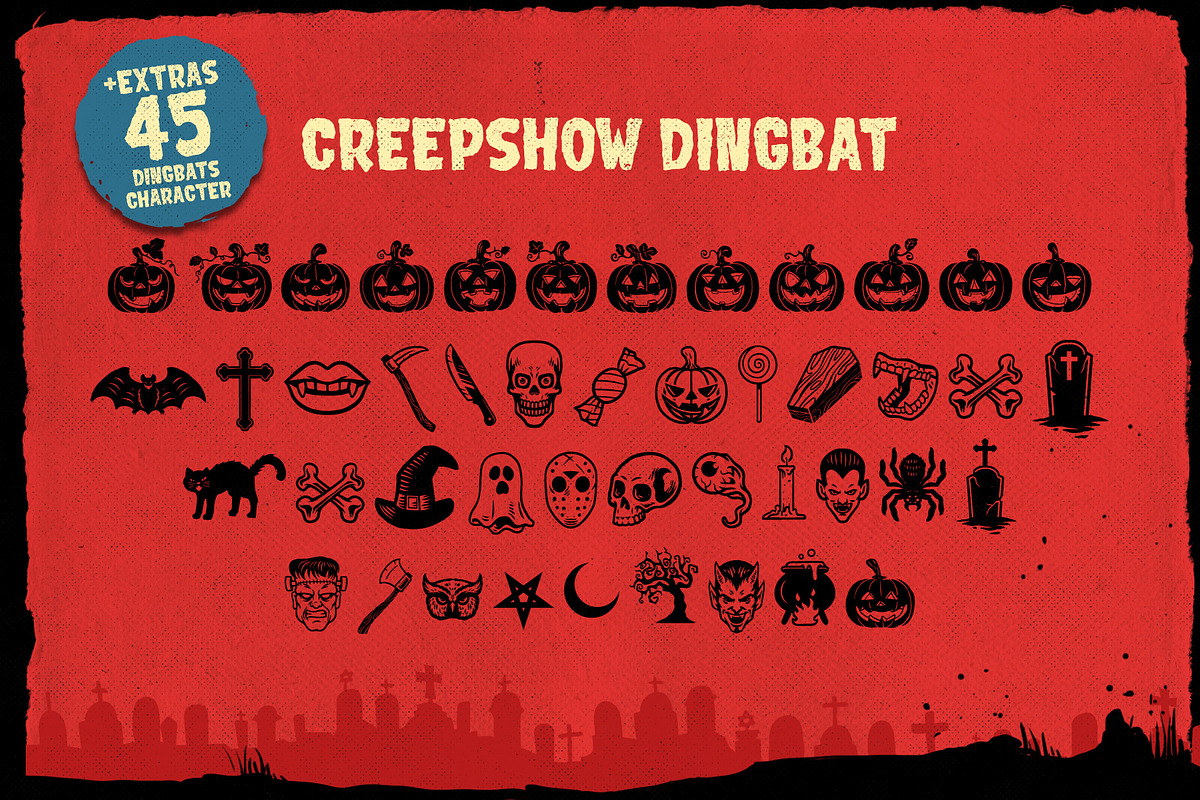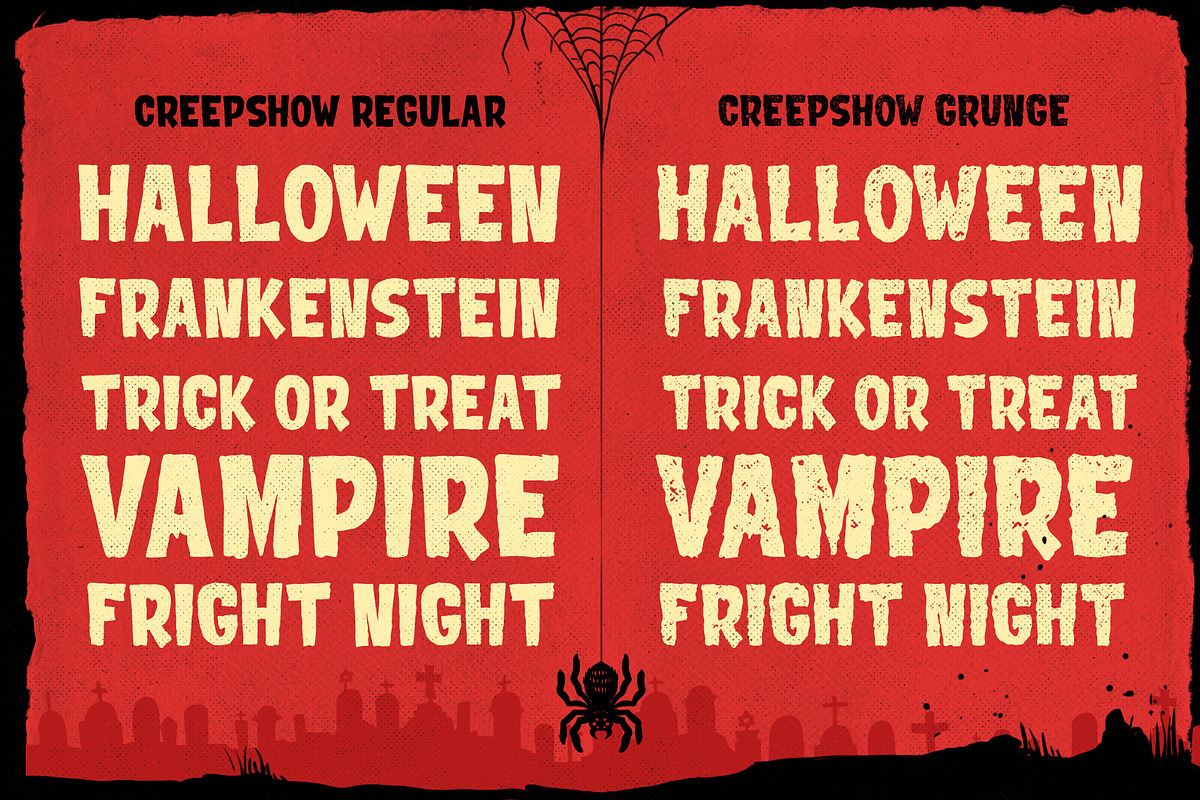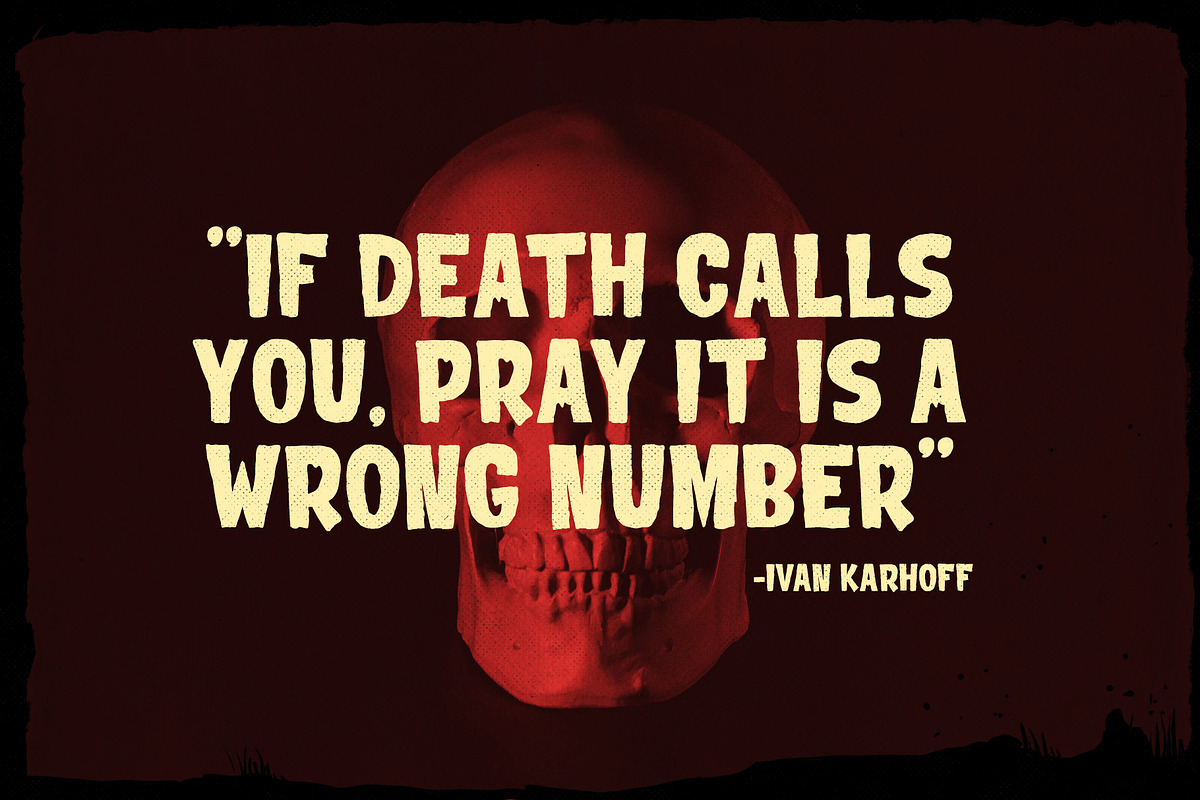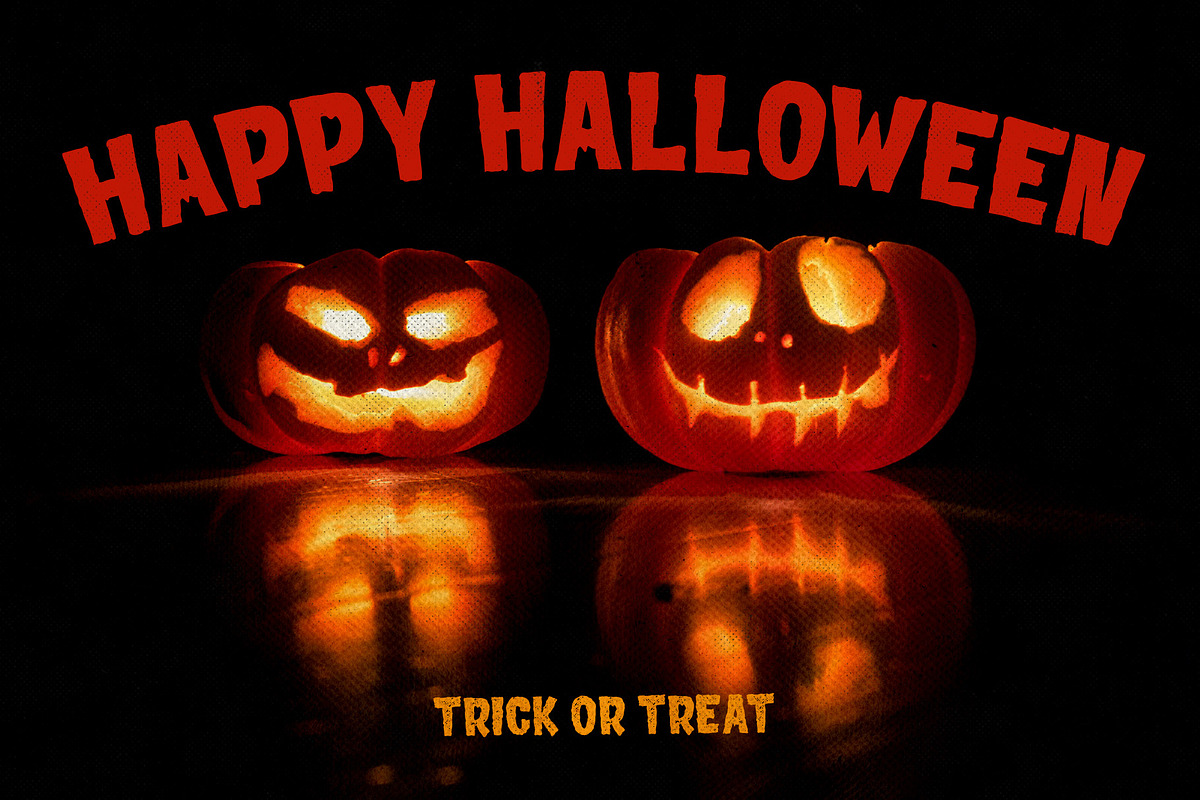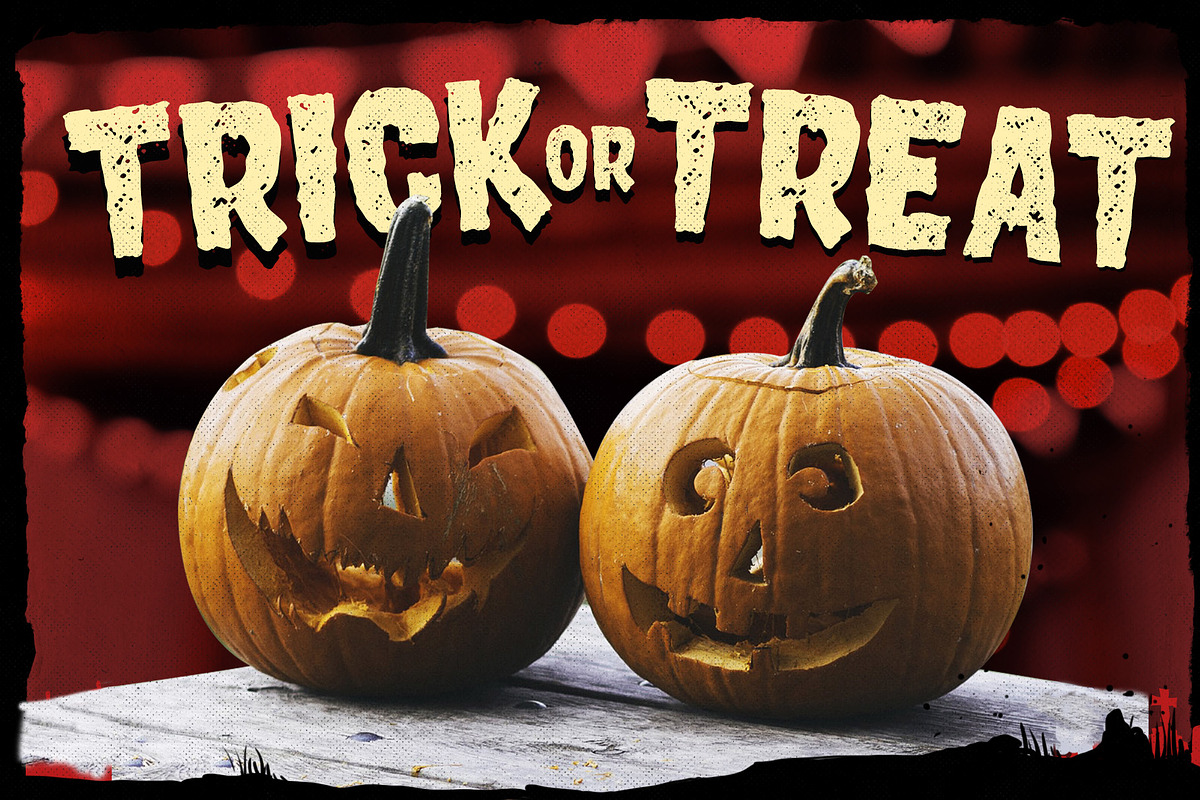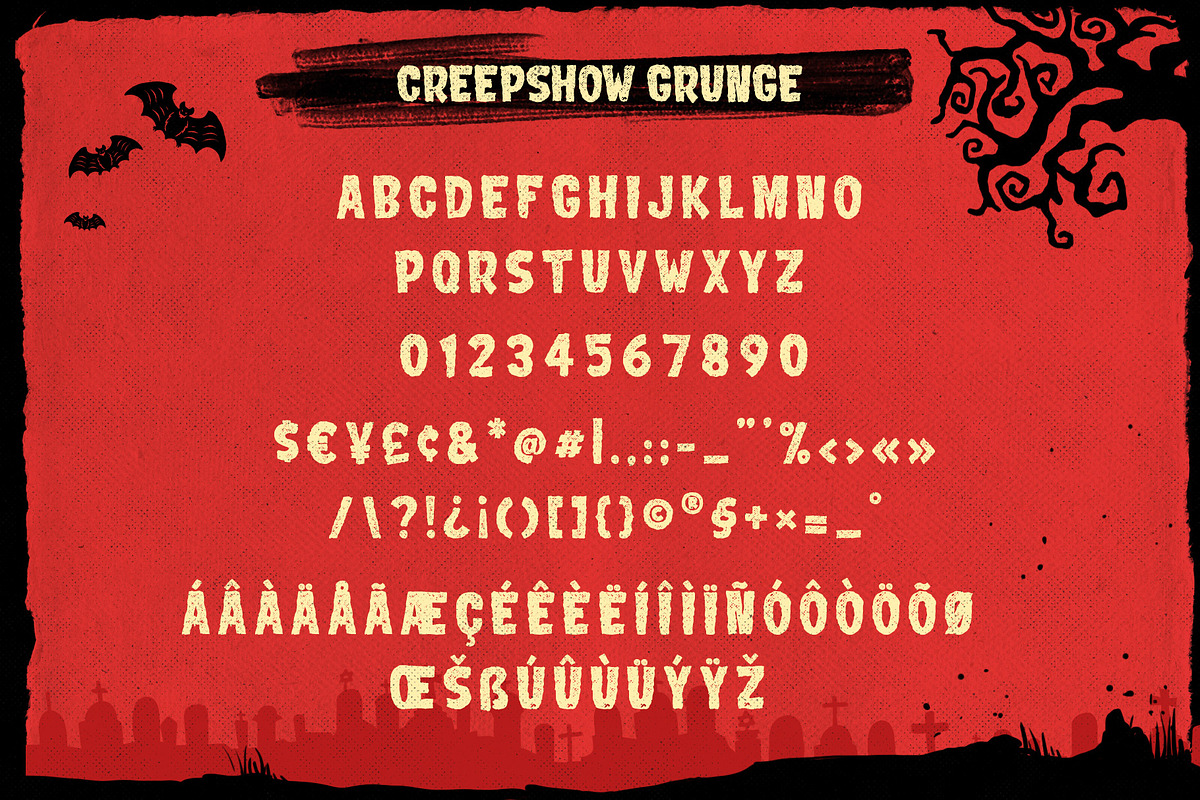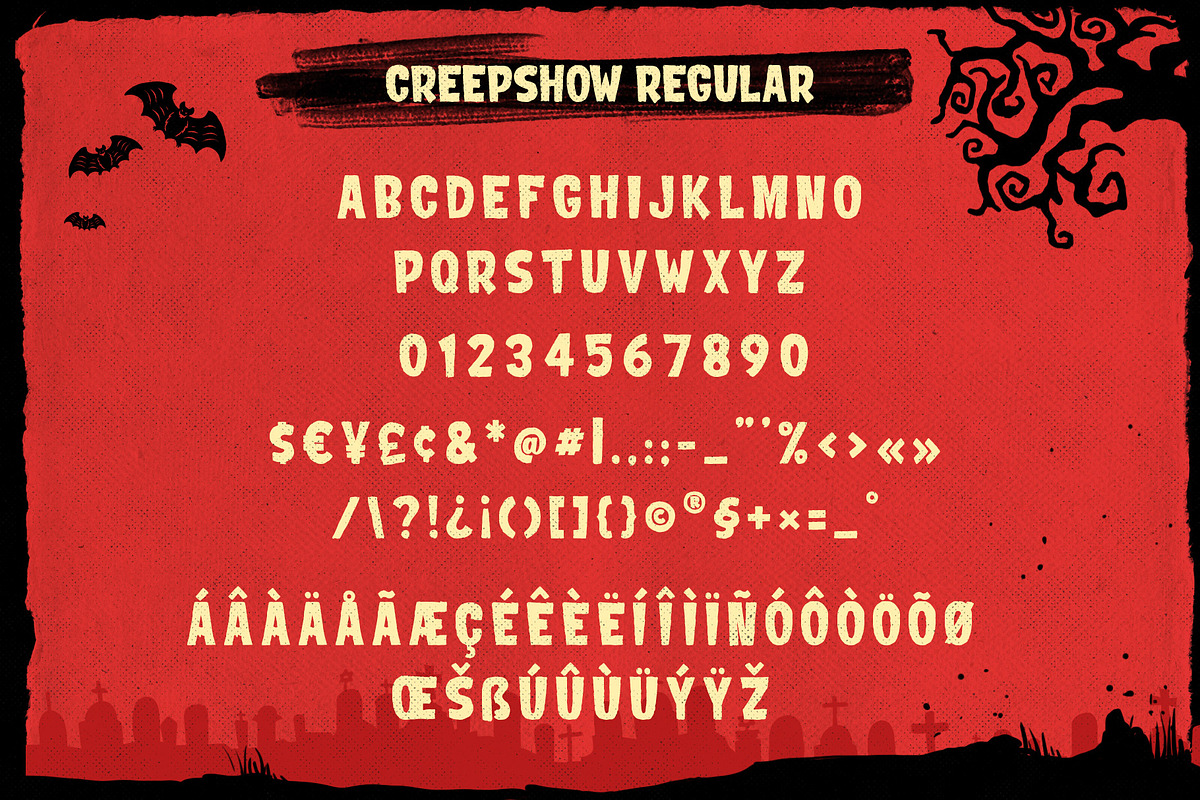
CREEPSHOWHalloween font
Inspired form vintage horror movie, Bazzier Graphik Studio presenting the creepy atmosfer into new typeface design called 'Creepshow'. This font suitable for your Horror concept, Halloween, Day of the Dead, Movie poster etc.
- Creepshow font package is including the Regular version, Grunge version and extra bonus Dingbat.
CREEPSHOWHalloween font by bazziergraphik fits naturally into Branding, posters, packaging, typography.